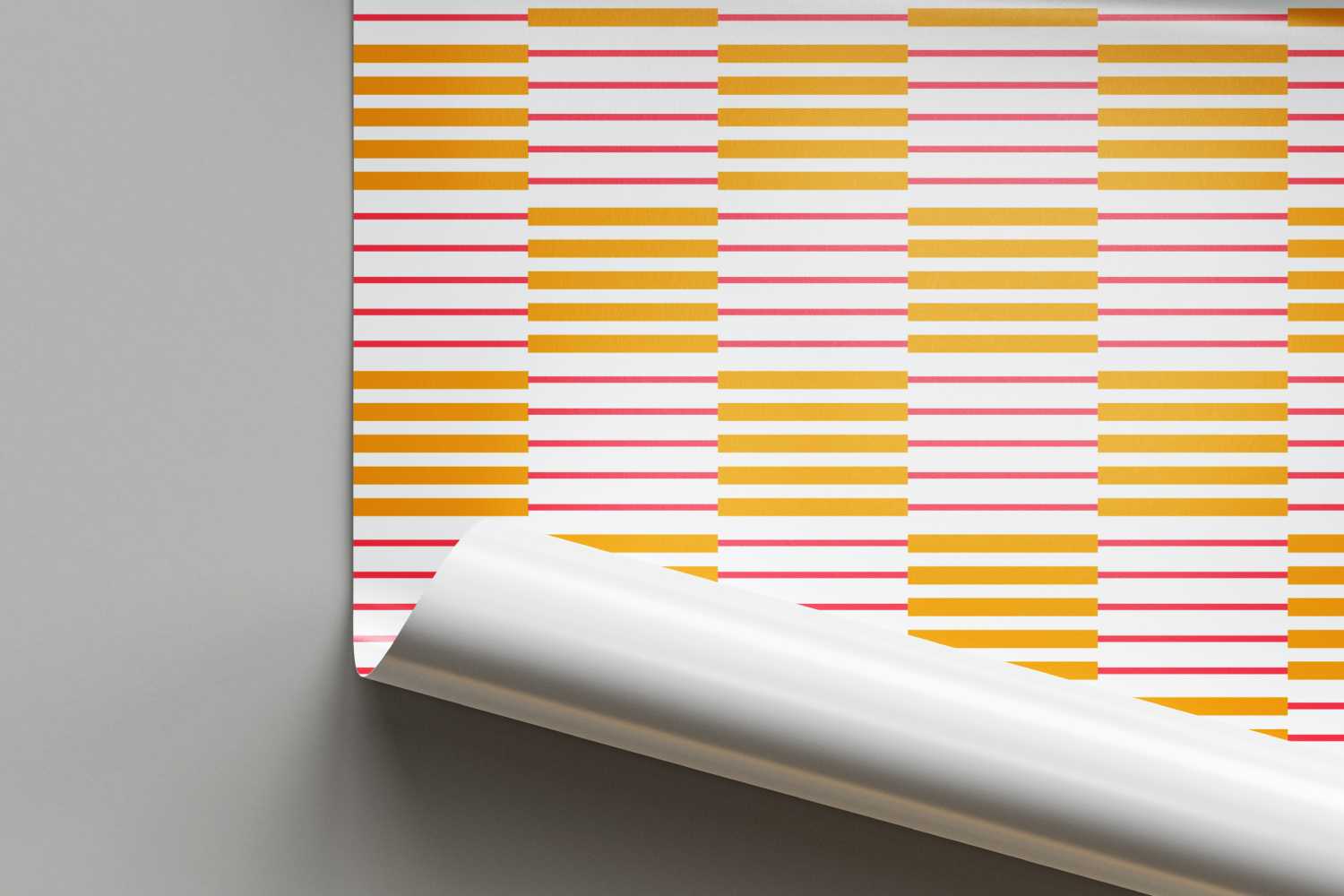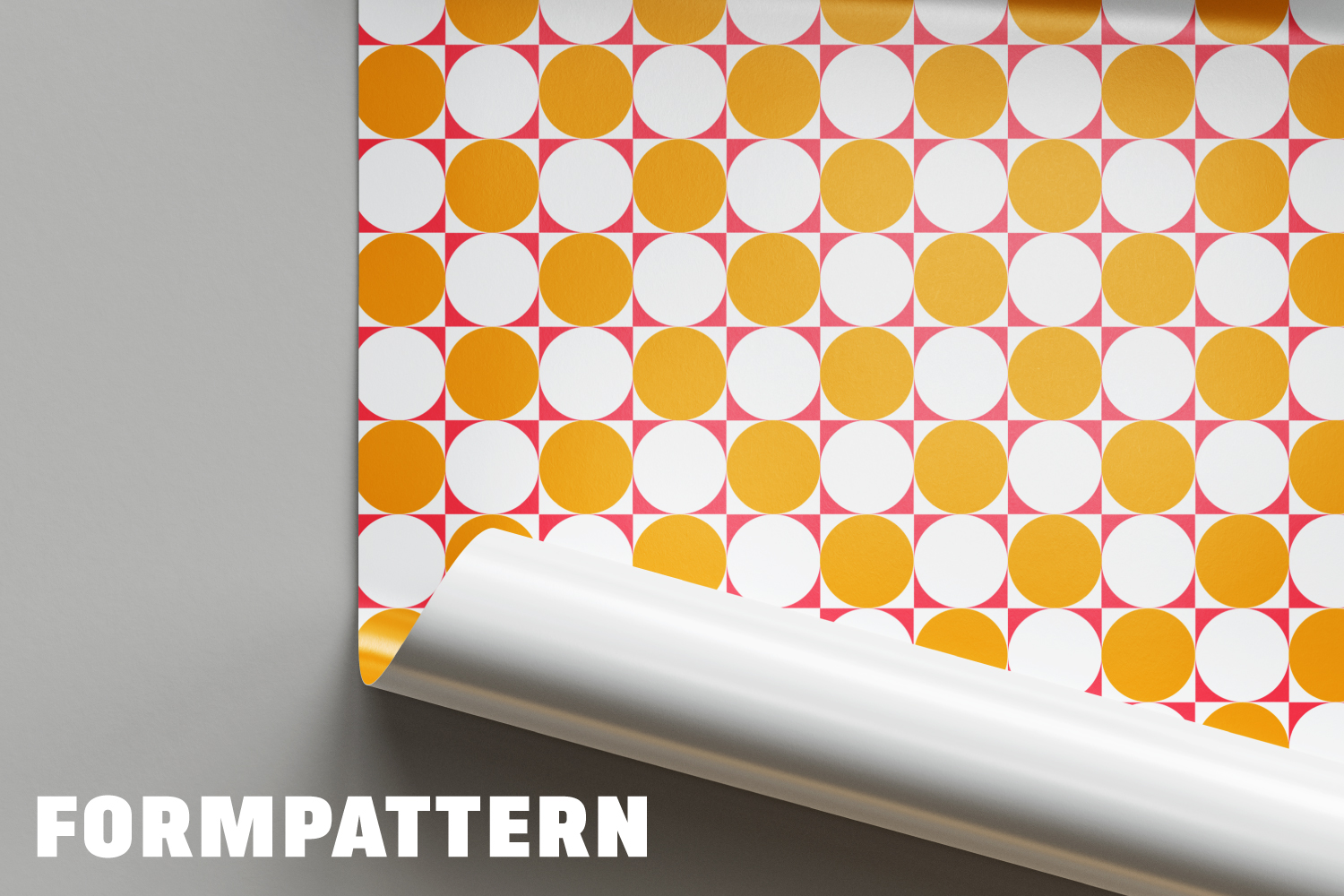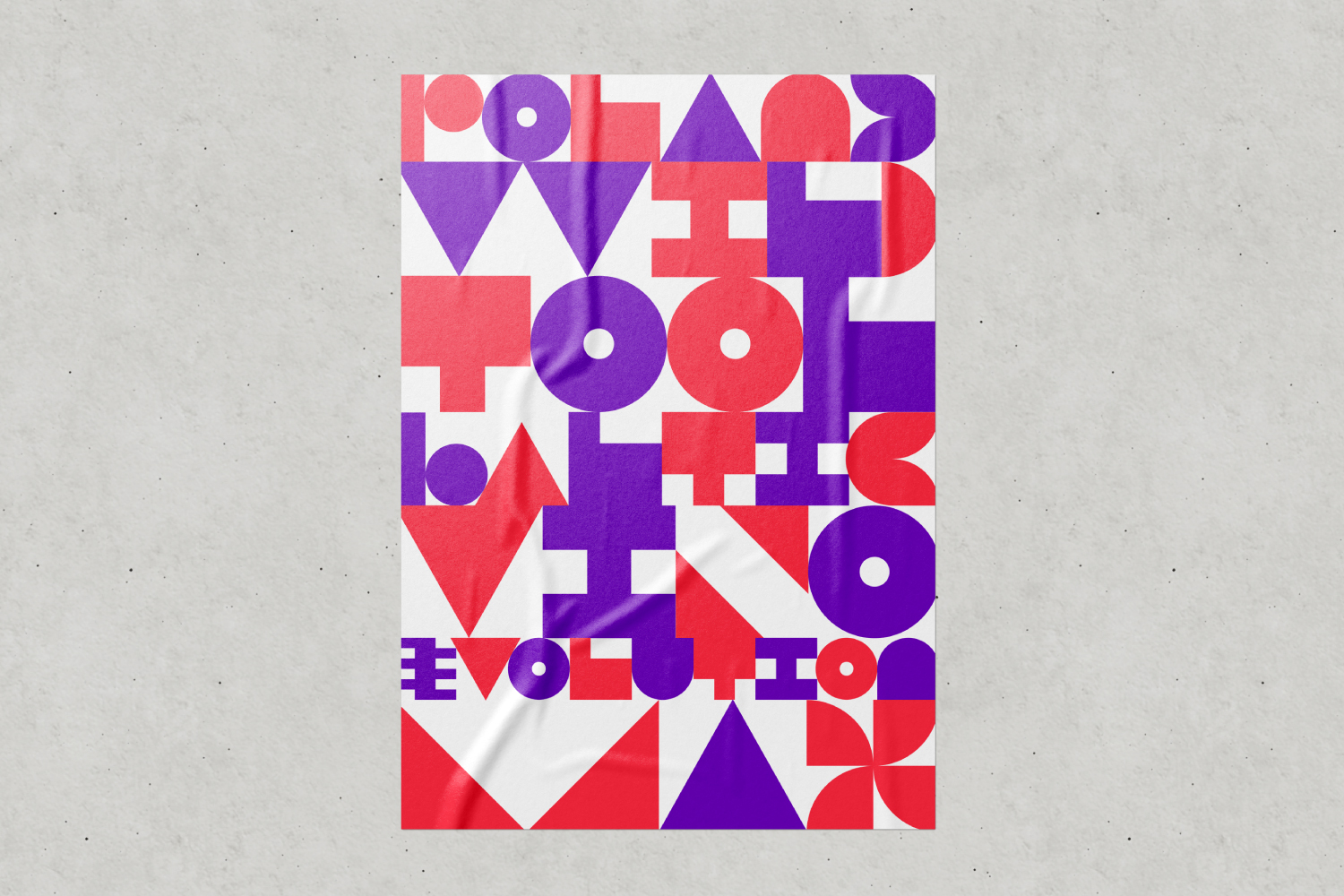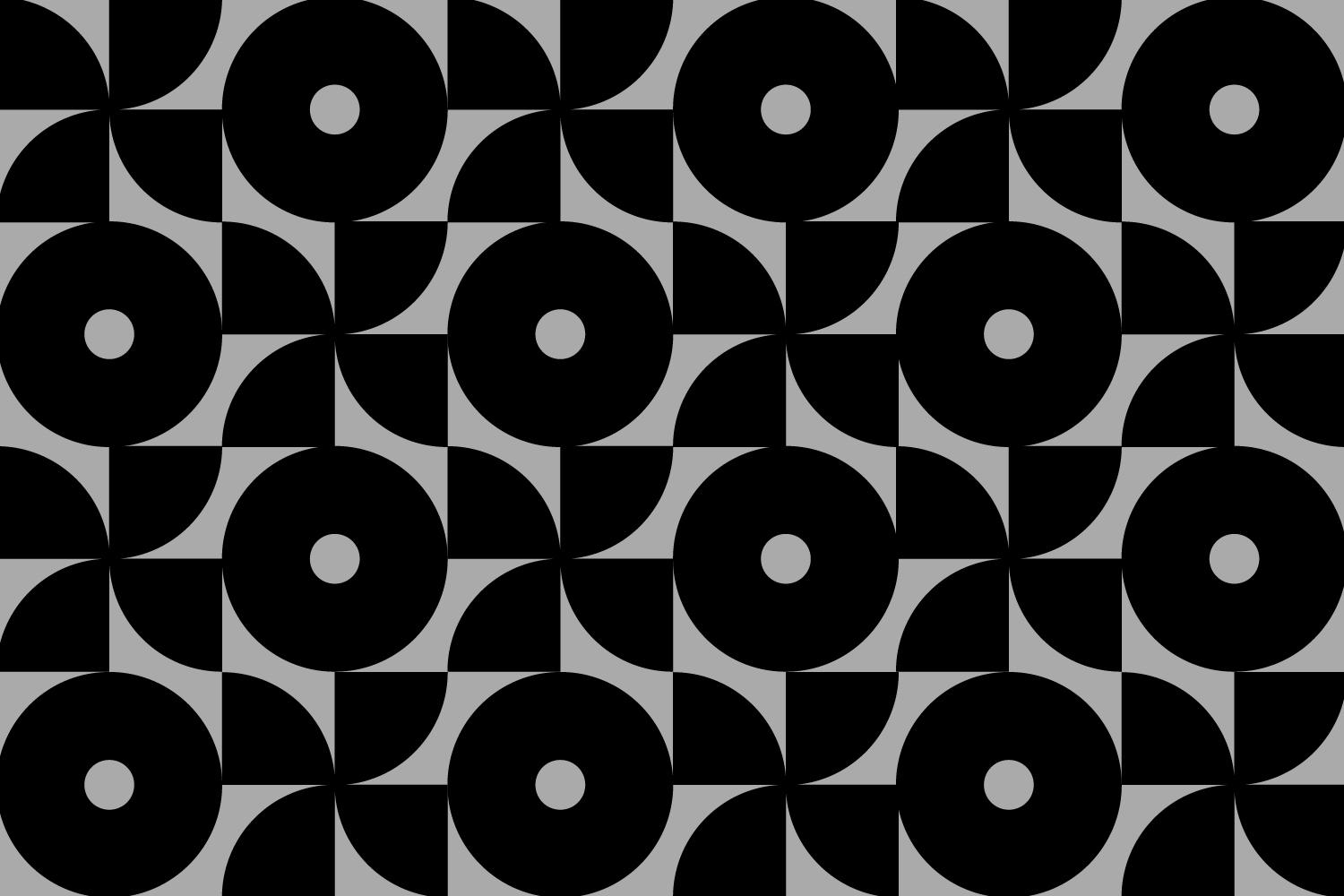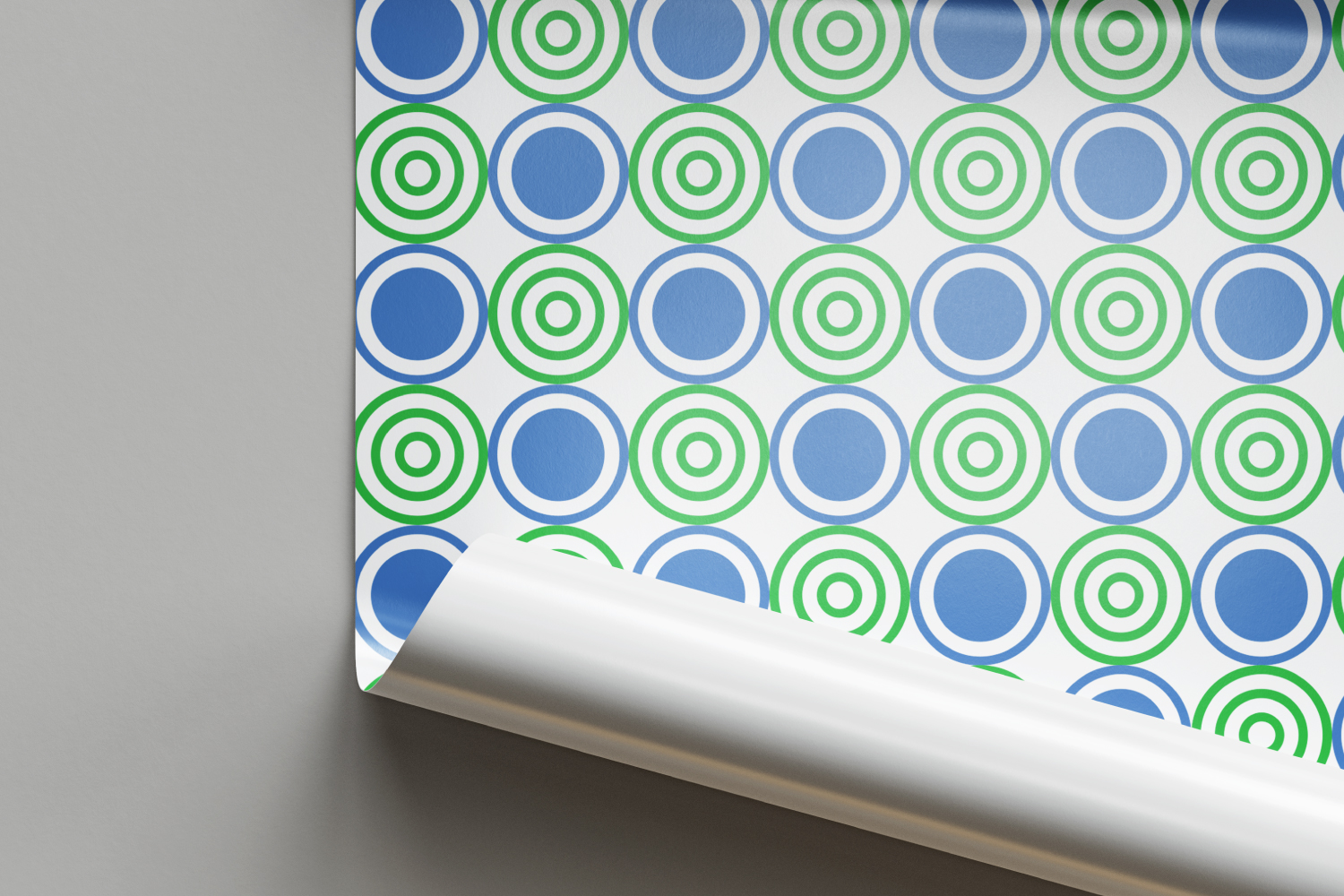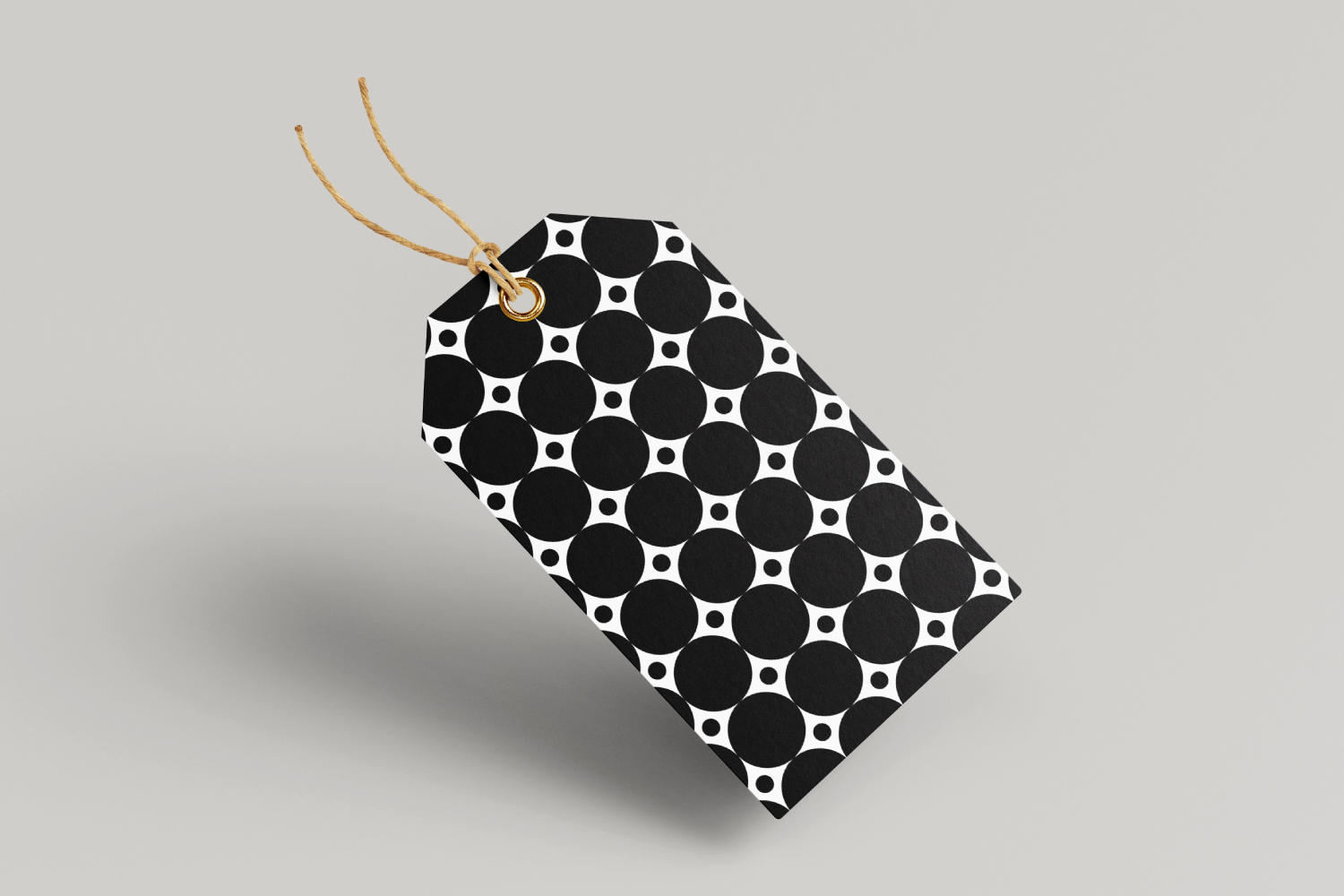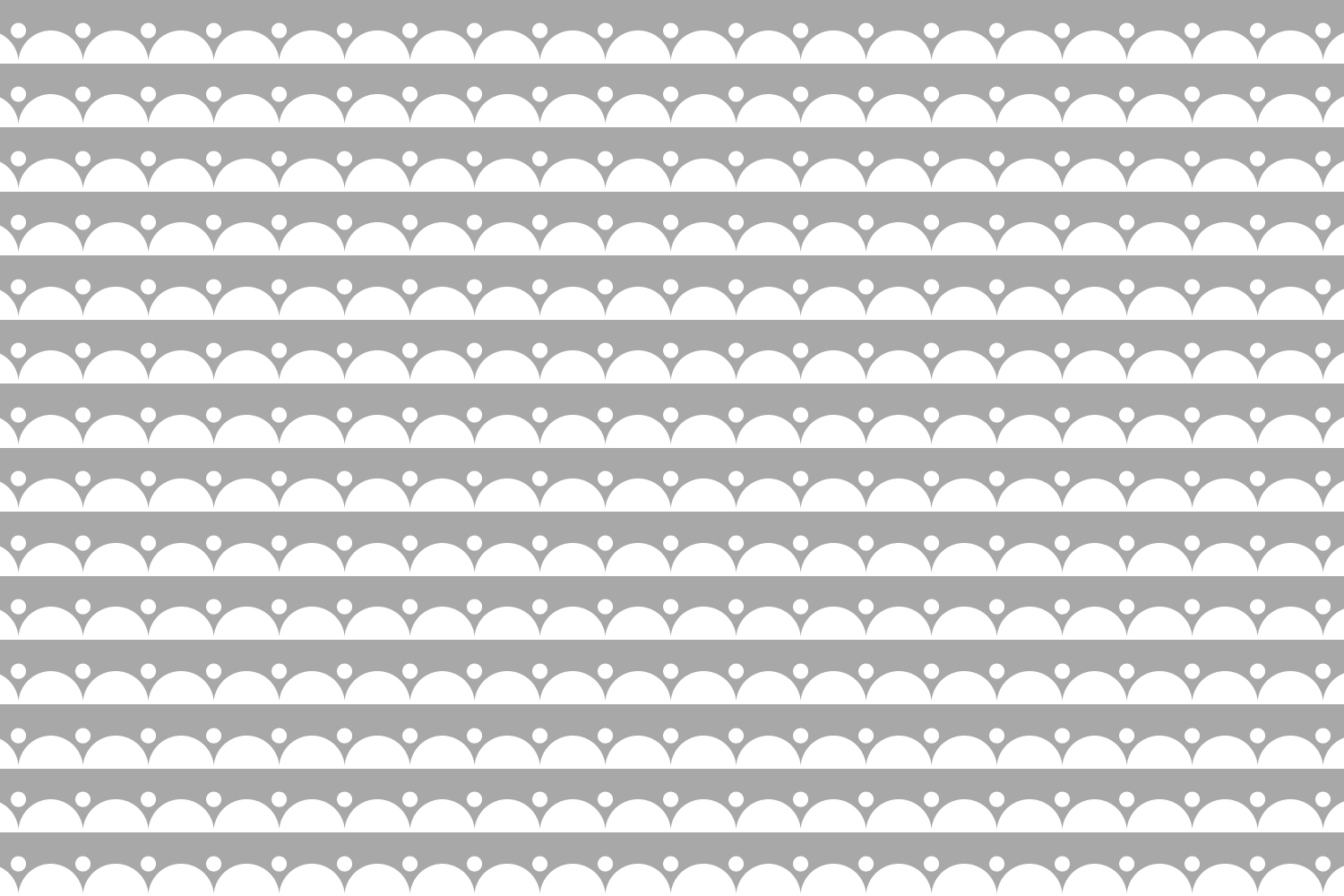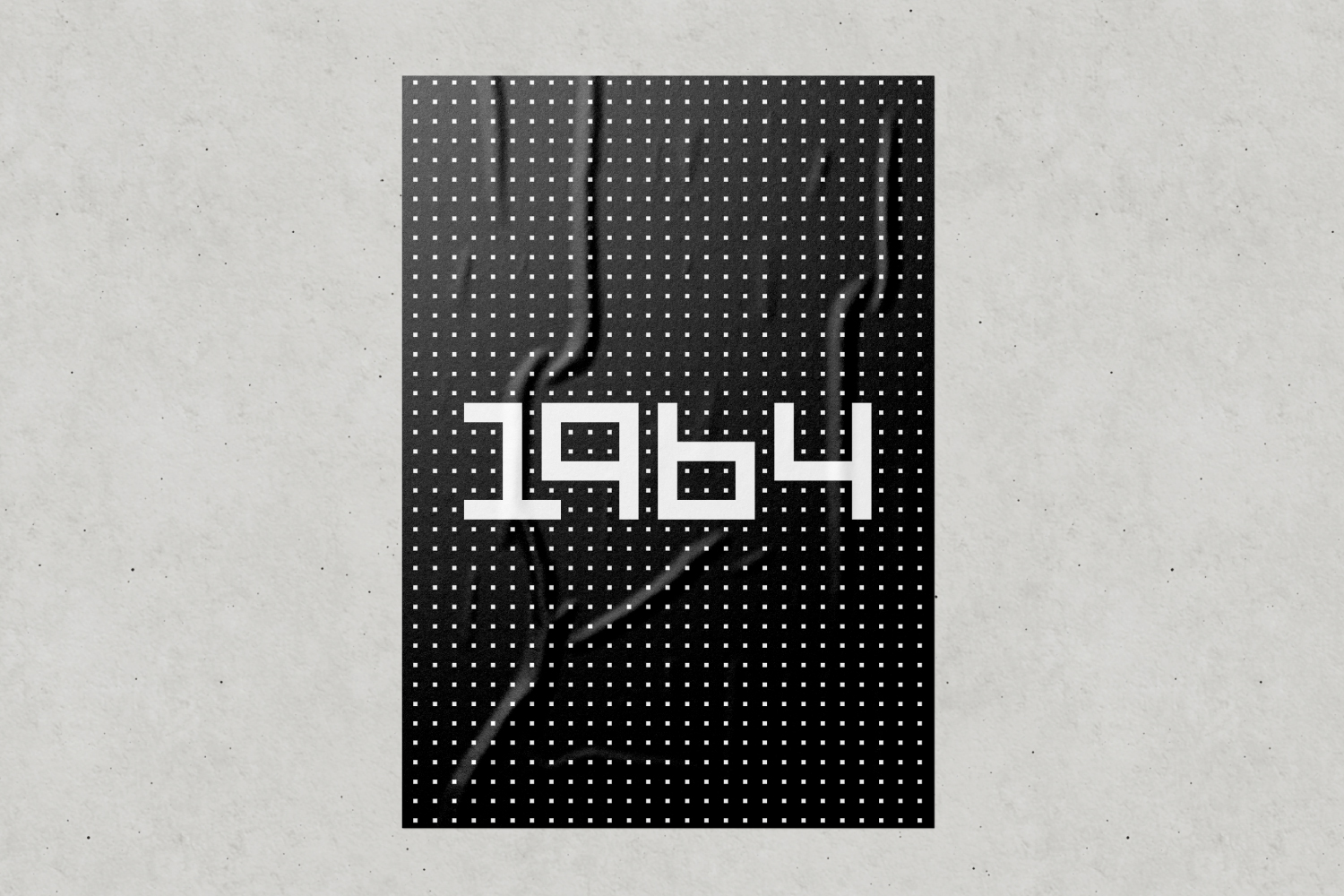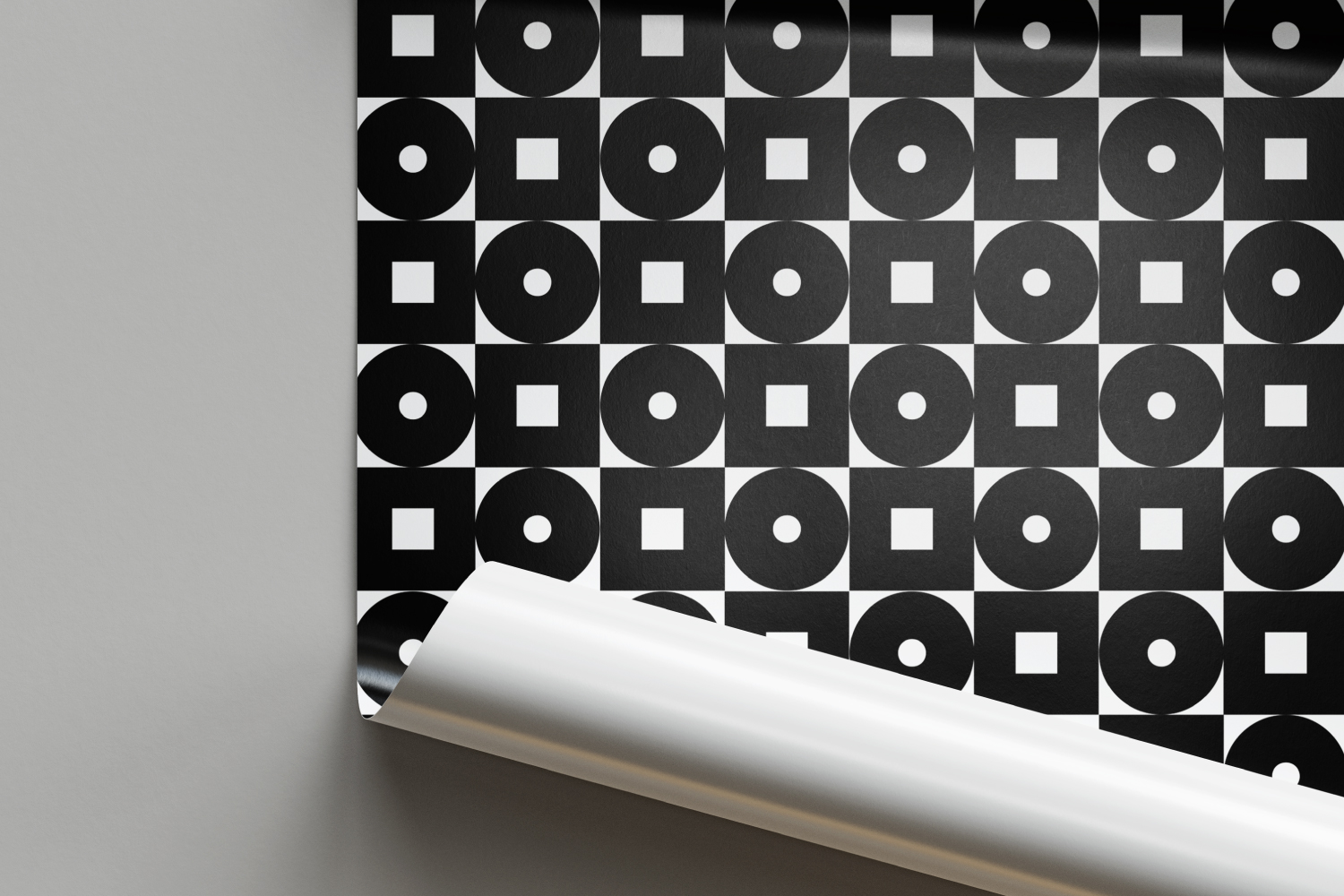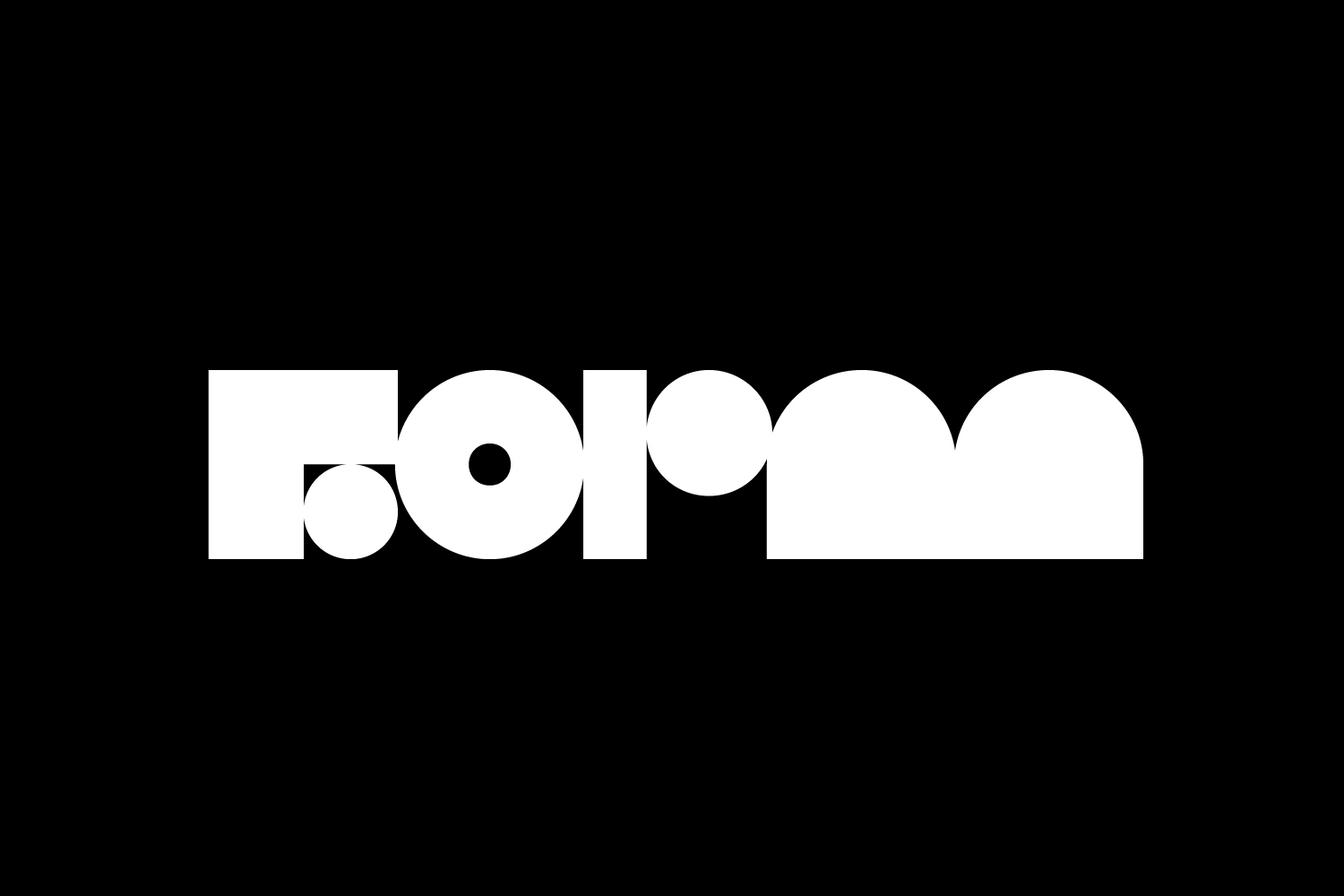
FormPattern Family (4 fonts)
From Tarallo Design
FormPattern comes in four fonts. Each font name ends with a different number (one, two, three, and six). The higher the number the more complex the forms within the font. The fonts can be used individually or together for patterns with varying complexity.
To be creative with this font family is simple. It is installed and used like any other font. Repeatedly pressing any key will make a repetitive pattern and varying the keys will create a varied pattern. Many of the forms in the glyphs are designed to seamlessly connect. Adjusting the letterspacing changes the pattern’s horizontal density and altering the line spacing (leading) will change the vertical density. The diverse forms can be easily located in the glyphs palette of any software.
FormPattern began as sketches of mosaics in the southern Italian cities of Bari and Palermo. These mosaics were found in churches, yet their creation was informed by different cultures and spiritual traditions that had influence in Italy over the centuries. The mosaics not only represent the intentions of the Church, but also due to their connection to the art of Islam they symbolize the beautiful concept of harmony between god, humans, and the infinite. This concept is represented through continuous repetitive patterns made possible through underlying formal and mathematical planning. FormPattern is also available as color fonts.